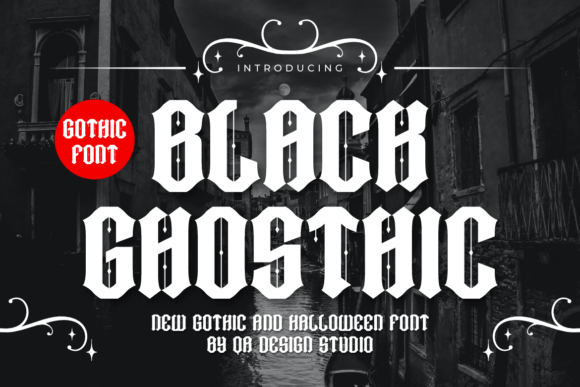
Step into the world of darkness and bold, where the Black Ghosthic font reigns supreme. This blackletter masterpiece, handpicked from the legendary collection of qrdesignstd, is not for the faint-hearted. Its thick, imposing strokes dance across your designs, captivating imaginations and commanding attention like no other.
Black Ghosthic is more than just a font; it's a statement. Its powerful aura exudes strength and authority, perfect for posters and fliers that demand to be noticed. Its bold presence slices through the clutter, ensuring your message cuts through the noise and leaves an indelible mark.
Harness the power of Black Ghosthic to create posters that ignite passion, provoke thought, and spark action. Its commanding presence grabs attention like a magnet, drawing eyes to your every word. Whether you're crafting an event poster, a marketing campaign, or a personal statement, Black Ghosthic amplifies your message, making it impossible to ignore.
Dive into the world of fliers and let Black Ghosthic unleash its full potential. Design fliers that dance with intrigue, enticing recipients to explore further. Its thick, bold strokes create an air of mystery, urging people to delve deeper into your offerings. From product launches to special events, Black Ghosthic transforms ordinary fliers into captivating invitations that fuel curiosity and excitement.
With Black Ghosthic, you're not just downloading a font; you're unleashing a force of creativity that will revolutionize your designs. Its bold, confident strokes ignite passion and power, turning your words into visual masterpieces. Dare to embrace the darkness, embrace the bold, and let Black Ghosthic guide you to typographic greatness.